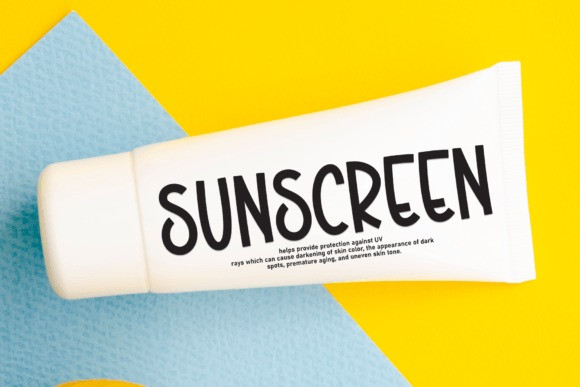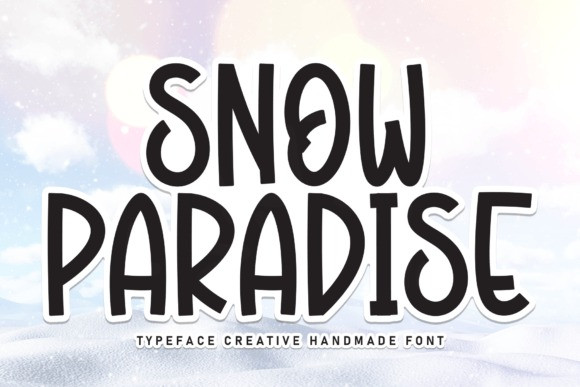
Snow Paradise Font
Snow Paradise Font is a versatile, stylish, and playful display font perfect for a wide spectrum of applications such as greeting cards, headlines, and many more! Add it to any of your creative projects, and it will give them a romantic and exquisite feel.